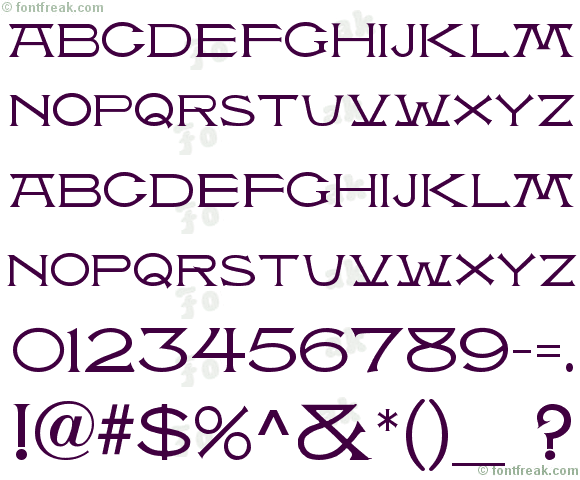
Atlantis MF
About Atlantis MF
Atlantis MF, designed by Richard Mueller in 1993, is a striking display font that blurs the lines between modern design and timeless elegance. As a decorative typeface, it combines unique stylistic elements that make it suitable for a variety of creative applications. The font features a distinctive stroke weight that varies throughout its characters, creating a sense of dynamism and visual interest. The contrast between thick and thin strokes adds depth, while the spacing is meticulously crafted to ensure legibility without sacrificing style. Decorative elements, such as the sharp angles and unique serifs, contribute to its overall character, making Atlantis MF a standout choice for any design project.
This versatile font is particularly well-suited for wedding invitations, where its elegant yet bold appearance can capture the romantic essence of the occasion. It also shines in movie posters, drawing attention to titles with its eye-catching aesthetic. Additionally, restaurant menus can benefit from the font's distinctive look, helping to convey the personality of the establishment. Graphic designers and content creators will find Atlantis MF a valuable asset in branding projects or promotional materials, where a unique typeface can set their work apart in a crowded market.